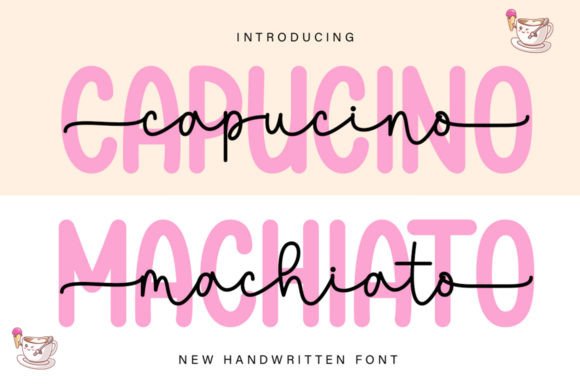
The Ultimate Font Duo for Your Creative Projects: Capucino Machiato
Have you ever been in the middle of a design project, pouring your heart and soul into it, only to get stuck on one thing: finding the perfect font? I certainly have! It was during one of those moments, working on a romantic greeting card design, that I stumbled upon the beautiful Capucino Machiato font duo. This stylish and delicate font combination, consisting of a sans serif and script font, instantly added a touch of elegance and romance to my design. In this article, I’ll share my experience with Capucino Machiato, its features, and how to make the most of it in your creative projects.
- ✨ Romantic and elegant feel: Capucino Machiato adds a touch of sophistication to any design, making it perfect for projects that require a bit of luxury and refinement.
- ✅ Versatility: This font duo is suitable for a wide range of applications, from greeting cards and invitations to headlines and social media graphics.
- 💡 PUA encoded: With PUA encoding, accessing glyphs and swashes is a breeze, giving you more creative freedom.
- 🎨 Customizable: The font comes with various OpenType features, allowing you to experiment with different styles and alternates.
- ⚠️ Script font limitations: While the script font is beautiful, it can be a bit challenging to read in large blocks of text or at small sizes.
- 🤔 Pairing with other fonts: As with any script font, pairing Capucino Machiato with other fonts can be a bit tricky. Some combinations might work better than others.
The Story Behind Capucino Machiato
Capucino Machiato was inspired by the classic coffee drinks and the art of typography. The font duo is designed to evoke the feeling of a romantic coffee date or a cozy afternoon in a charming café. The sans serif font provides a clean and modern base, while the script font adds a touch of elegance and sophistication.
A: PUA (Private Use Area) encoding allows you to access a wide range of glyphs and swashes, giving you more creative freedom and flexibility in your designs.
Q: Is Capucino Machiato suitable for body text?
A: While Capucino Machiato is beautiful, it’s recommended to use it for headlines, titles, and short paragraphs. The script font might be challenging to read in large blocks of text.